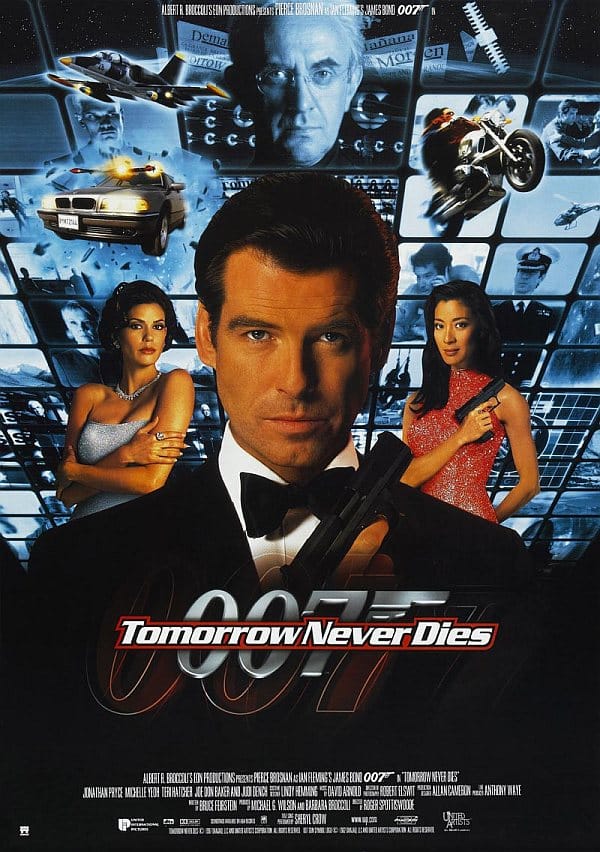
Tomorrow Never Dies Font
ActionTomorrow Never Dies is the 18th James Bond film, released in 1997 and starring Pierce Brosnan as Bond. It was directed by Roger Spottiswoode and written by Bruce Feirstein. The film follows Bond as he tries to stop media billionaire and power-mad Elliot Carver (Jonathan Pryce) from starting World War III.
Serpentine Bold Oblique is the font style used for the movie's title on the poster. The modern-looking semi-serif display font was created by American-type designer Dick Jensen in 1972 for the Visual Graphics Corporation. Six alternative font styles, including Light, Light Oblique, Medium, Medium Oblique, Bold, and Bold Oblique, are offered for the Serpentine font family.